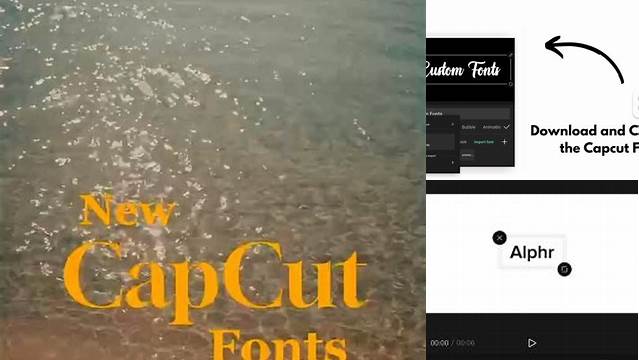
Top CapCut Fonts: Styles You Need To Know!
Hey everyone! If you're diving into the world of video editing with CapCut, you're probably already having a blast. And one of the coolest ways to spice up your videos is by using the right fonts. Choosing the most popular CapCut fonts can seriously elevate your content, making it more eye-catching and on-brand. In this article, we're going to explore some of the best fonts you can use, and trust me, there’s something for everyone. From sleek and modern to playful and quirky, we'll cover a wide range to help you make your videos pop. Let's get started and find the perfect font for your next project! We’ll dive into what makes a font great, how to find them in CapCut, and how to use them effectively. Get ready to level up your video editing game, guys!
1. Understanding the Impact of Font Choices in CapCut
Alright, before we jump into the most popular CapCut fonts, let’s talk about why fonts are so important. Think of your video as a visual story. Every element, from the clips you choose to the music you use, contributes to that narrative. And guess what? Fonts are a HUGE part of that. They are not just words; they are visual elements that convey mood, tone, and personality. Choosing the wrong font can clash with your video’s message, while the right one can enhance it beautifully. When you select a font, you're making a statement. Is your video formal and professional? You'll probably want a clean, sans-serif font. Are you aiming for something fun and whimsical? A playful, handwritten font might be the perfect choice. Consider your audience and the overall vibe of your video. A font that works for a cooking tutorial might not be the best choice for a corporate presentation. Understanding these nuances is key to selecting the most popular CapCut fonts that will work for you. The right font can create a strong brand identity, making your content instantly recognizable. Consistency in font usage across your videos helps build a cohesive visual style. This means that your viewers will begin to associate that specific font with your brand. Think about the major brands you know; their fonts are a huge part of their identity. They can also improve readability and engagement. A well-chosen font is easily readable, even at a glance. Clear and legible text ensures that your message gets across to your audience without any confusion. This is crucial for information display, call-to-actions, and any text overlay in your videos. Moreover, a well-chosen font can even guide your audience. Strategic font choices can direct the viewer’s eye, emphasizing key information and creating a visual hierarchy. This makes the video more engaging, allowing viewers to understand the message more effectively. It's all about understanding what you are going for and the message you want to deliver.
2. Key Features of Highly-Rated CapCut Fonts
So, what makes a font one of the most popular CapCut fonts? Well, it's more than just looking pretty; there are some key features that really set fonts apart. First off, readability is king. If your audience can't read your text easily, it's useless. Make sure the font is clear, simple, and easy to understand, especially on mobile devices, where most people watch videos. Legibility matters! Next up, consider the font’s versatility. Does it work well in different contexts? Can you use it for titles, subtitles, or even short sentences within your video? A versatile font will adapt to various needs. Another key feature is style. Your font should match the overall style of your video. If your video is about technology, then you don’t want to use a font that feels super old or outdated. Think about modern, clean fonts. Lastly, the availability matters. Is the font readily available in CapCut, or do you need to download it? If it's easily accessible within the app, it's a bonus. Easy access saves you time and lets you focus on your creative work. Popular fonts usually blend all of these features. When we look for the most popular CapCut fonts, we're looking for those that are not only aesthetically pleasing but also highly functional. They are designed to enhance, not distract from, the video content. These fonts must be easy to read, fit into different types of videos, and be easy to access. This means a lot of research, trial, and error will be needed to find the best options for you. Some fonts are also available in multiple weights and styles (bold, italic, etc.), which gives you greater flexibility to create hierarchy and visual interest. Finding these most popular CapCut fonts could be a challenge, but it is very essential to making your video successful.
3. Exploring Stylish Sans-Serif Fonts on CapCut
Sans-serif fonts are a great starting point when trying to discover the most popular CapCut fonts. These fonts are known for their clean, modern look and are super versatile. They're often used for text that needs to be easily readable. If you're looking for simplicity, elegance, and clarity, sans-serif fonts are your best bet. You'll find a bunch of these options in CapCut that can really make your video content stand out. Arial is the go-to. It's a classic, and for good reason: it's clean, simple, and gets the job done. It works great for pretty much anything, from titles to subtitles. It's available in most of the text editing softwares, so you would not have a hard time finding it. Open Sans is another fantastic choice. It's modern and friendly, which is why it's widely used across the web. Perfect for a wide range of video types. Its open design is easy on the eyes, making it super readable. Roboto is another popular choice, with its geometric forms and clean lines. It's great for both titles and body text. It looks very sleek and modern. It is also highly versatile. These fonts are the workhorses of video editing. They’re easy to read, and they pair well with different visuals. Sans-serif fonts are a safe bet if you're unsure which style to go for. Their clean look won't clash with your video. They are very versatile, so they can be used for many different applications. You'll see them in everything from corporate videos to casual vlogs. The beauty of sans-serif fonts lies in their simplicity. They don't draw attention away from the video's content, but they still provide a professional, clean look. These fonts are the bread and butter of video editing and one of the most popular CapCut fonts for their ease of use and adaptability.
4. Discovering Elegant Serif Fonts in CapCut
Let's explore a different side of the font world: serif fonts. They are classic and give a touch of elegance to your videos. The most popular CapCut fonts in the serif category are perfect for adding a sense of sophistication, and class to your content. Serif fonts have small strokes, or serifs, at the end of the letters, which makes them stand out. They're often used for titles, headers, and any text where you want to emphasize quality or classic style. Serif fonts can evoke feelings of trust and prestige. One of the most popular CapCut fonts is Times New Roman. It’s a classic, dependable choice, perfect for a polished, traditional look. This font is great if you're aiming for a formal feel. Another great option is Georgia. It's designed to be easy to read, even at small sizes, which makes it ideal for subtitles or body text. It has a more approachable feel compared to other traditional serif fonts. Playfair Display is a great choice for titles or headers. It is a high-contrast serif font, that is very eye-catching, and will add a touch of elegance to your videos. Using serif fonts can set your videos apart, making them look more refined. The subtle details of serif fonts add an element of sophistication. If you want to elevate your video, the right serif font can make a huge difference. Serif fonts work wonders in videos that aim to give off feelings of reliability, sophistication, or history. So, if you're looking to add a touch of class to your videos, consider the most popular CapCut fonts in the serif category.
5. Unveiling the Charm of Handwritten Fonts on CapCut
Handwritten fonts are fantastic for a more personal and friendly vibe. When you want to add a touch of creativity or a casual feel, these fonts can make a world of difference. The most popular CapCut fonts in this category bring a unique, human touch to your videos, perfect for when you want to connect with your audience on a more personal level. They give your video a more human touch. These fonts can evoke feelings of authenticity and approachability. The best thing is, you can find a bunch of these within CapCut, giving you the perfect mix of style and accessibility. Playlist Script is a popular option; it adds a playful and fun look to your videos. Great for travel vlogs or anything that you want to have a fun, youthful vibe. Caveat is another favorite; it is super versatile and easy to read. The best part about these fonts is that they are super versatile. They work well for a variety of applications. Handwritten fonts aren’t just about looking pretty; they can really help your videos stand out. They are excellent for adding a sense of personality to your content. They're all about creating a sense of personality and uniqueness. If you want your videos to be unique and make your audience feel like they're getting something special, handwritten fonts are a great choice. Finding the most popular CapCut fonts from the handwritten category is all about choosing the one that best fits the mood of your video. They help your content feel more genuine. So, the next time you're working on your video, consider incorporating a handwritten font to bring a personal touch to your work.